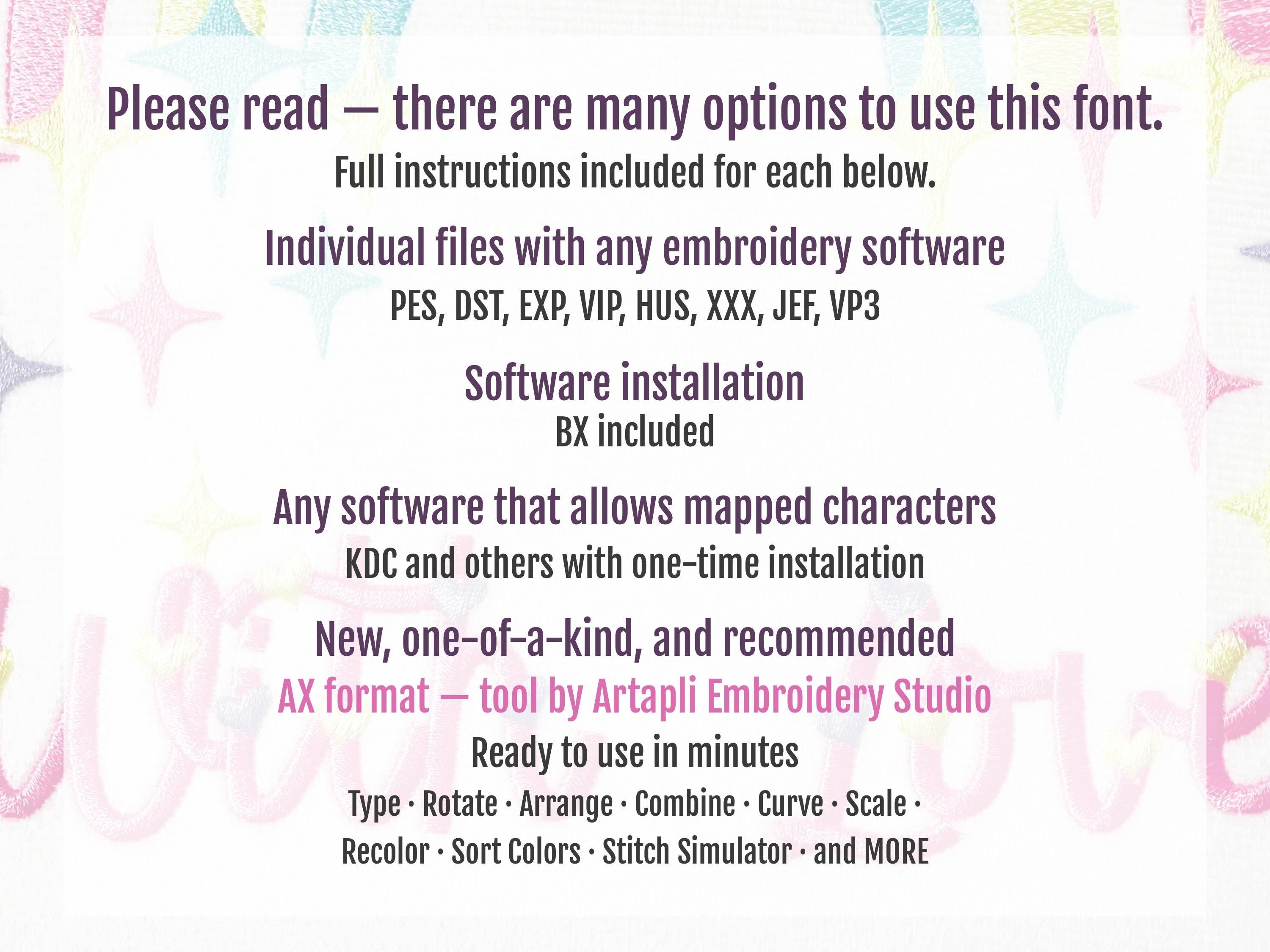
Quick light bean stitch Thin Line FONT machine embroidery designs assorted mini sizes, handwritten alphabet letters, kids name, BX included
Whole alphabet: uppercase and lowercase letters, numbers